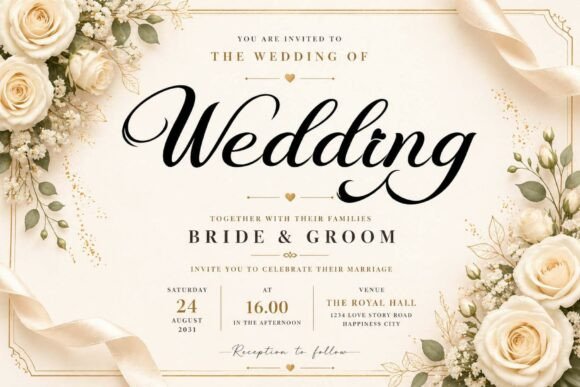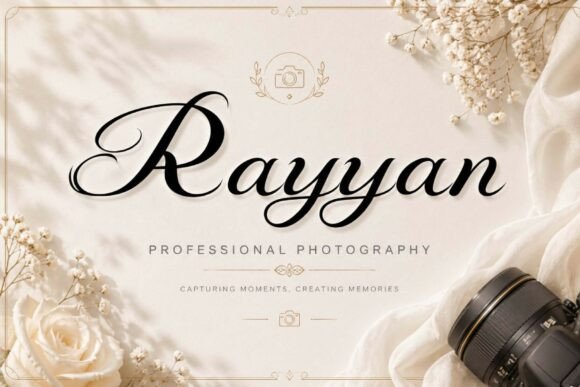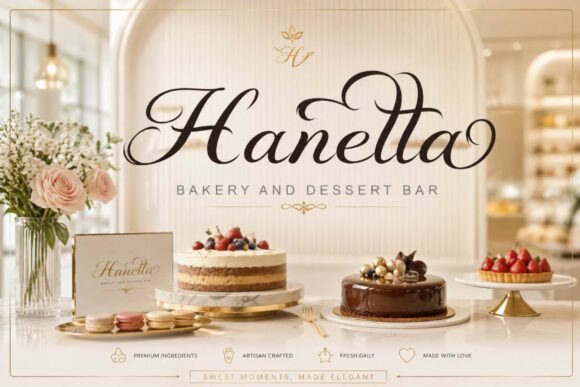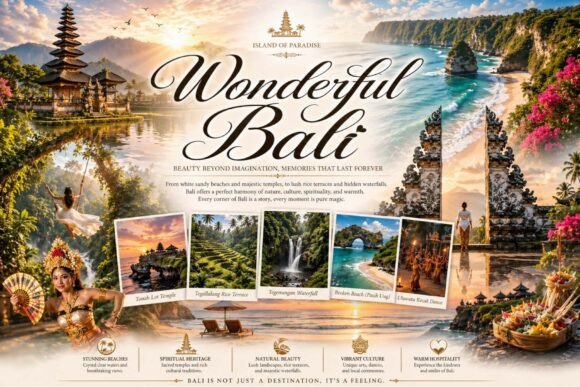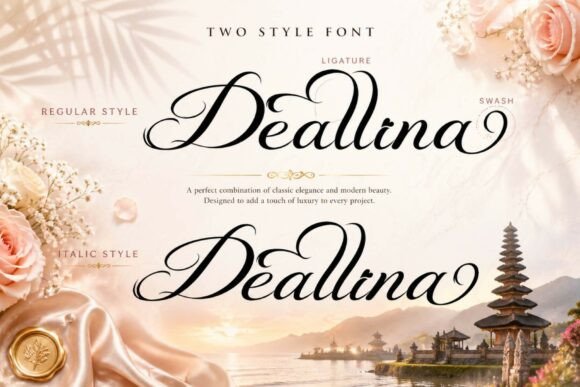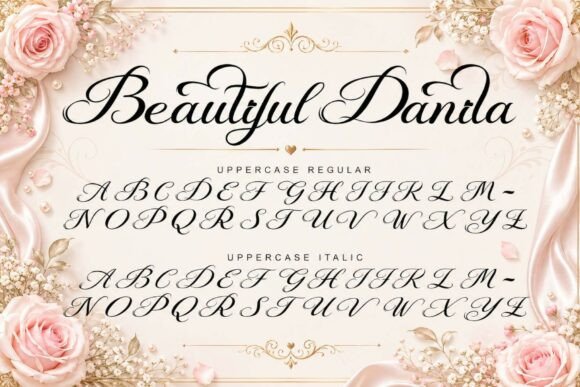
Discovering the Perfect Script for Your Next Project
Have you ever been stuck on a design project, searching for the perfect font to capture the essence of your idea? I know I have! There’s something magical about finding that one font that makes your design come alive. For me, it was when I stumbled upon the Beautiful Danila Font – a beautiful and elegant handwritten font that has since become a staple in my design toolkit.
Beautiful Danila Font is a versatile and stylish script that comes in two styles: regular and italic. With its wide range of features, including uppercase and lowercase letters, numerals, punctuations, alternates, swashes, and multilingual support, this font is perfect for a variety of design projects. Whether you’re creating invitations, certificates, or advertisements, Beautiful Danila Font is a valuable asset for any designer looking to add a touch of elegance and sophistication to their work.
Beautiful Danila Font Key Features
- Font Family: Beautiful Danila is a unique, elegant script font designed to add a touch of sophistication to any design project.
- Unique Characteristics: Beautiful Danila features a beautiful, flowing script design with intricate details and elegant flourishes, perfect for creating visually appealing and sophisticated designs.
- Character Count: Contains a large character set, including uppercase and lowercase letters, numerals, and special characters, making it suitable for a wide range of design applications.
Review of Beautiful Danila Font
Overall, I think the Beautiful Danila Font is a unique and charming addition to any design project. ✨ It has a distinctive flair that sets it apart from more generic font styles.
The Beautiful Danila Font excels in the following areas:
- Its organic and handwritten feel makes it perfect for creating a sense of warmth and personality in designs.
- The font’s fluid connections between letters create a natural, flowing effect that’s hard to resist.
- It’s an excellent choice for branding, especially for creative and artistic businesses that want to stand out.
- ⚠️ The Beautiful Danila Font may be too ornate for some designs, making it difficult to read in certain contexts.
- ⚠️ It’s not ideal for body text, as it can be quite dense and overwhelming.
Despite these limitations, I believe the Beautiful Danila Font is a valuable addition to any designer’s toolkit. It’s perfect for creating eye-catching headings, titles, and other visual elements that require a touch of elegance and sophistication.
For best results, use Beautiful Danila Font for headings and titles to add a touch of elegance to your design.
Use Beautiful Danila Font for creating custom logos, graphics, or typography projects.
Use Beautiful Danila Font for creating visually appealing presentations and documents.
Beautiful Danila Font is ideal for:
- Typography projects and graphics
- Presentations and documents
With its elegant and sophisticated design, Beautiful Danila Font is sure to add a touch of class to any project.